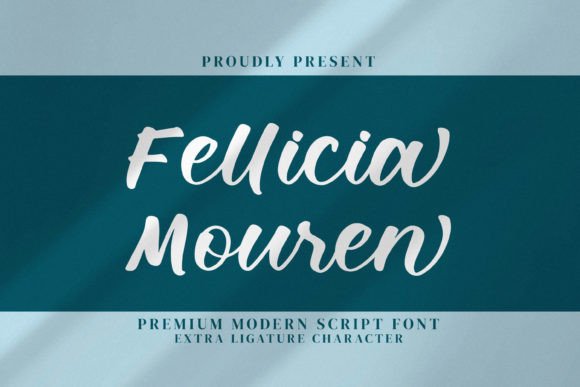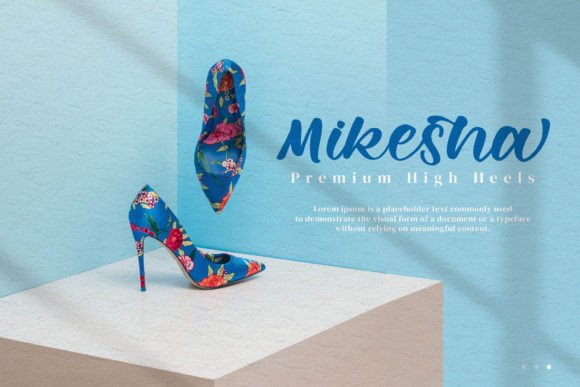
Fellicia Mouren Font: Elegant Script for Wedding & Logo Design!
About the Fellicia Mouren Font
Experience the unique personality of Fellicia Mouren Font, a font designed for impact. Felicia Mouren is an elegant and modern script font. This minimalist and clean vibe can easily apply to your favorite designs such as book covers, magazines, social media posts, invitations, and so much more!
Fellicia Mouren excels in applications requiring a touch of sophisticated elegance; it’s ideal for logos, short headlines, and invitations where its refined strokes create a memorable impression. However, its delicate nature makes it less suitable for body text or UI elements where readability at smaller sizes is crucial. Avoid using it for lengthy paragraphs or situations demanding high contrast.
Pair Fellicia Mouren with a clean sans-serif like Montserrat for a contemporary feel, or a classic serif such as Garamond for a more traditional yet balanced aesthetic. For a bolder contrast, consider pairing it with a geometric sans-serif, but keep the application concise to maintain visual harmony.
Its core personality is understated elegance with a modern sensibility. Brands and projects seeking a refined, sophisticated, and memorable visual identity will find Fellicia Mouren a strong asset.
Fellicia Mouren Font Usage Examples
Fellicia Mouren Font Example